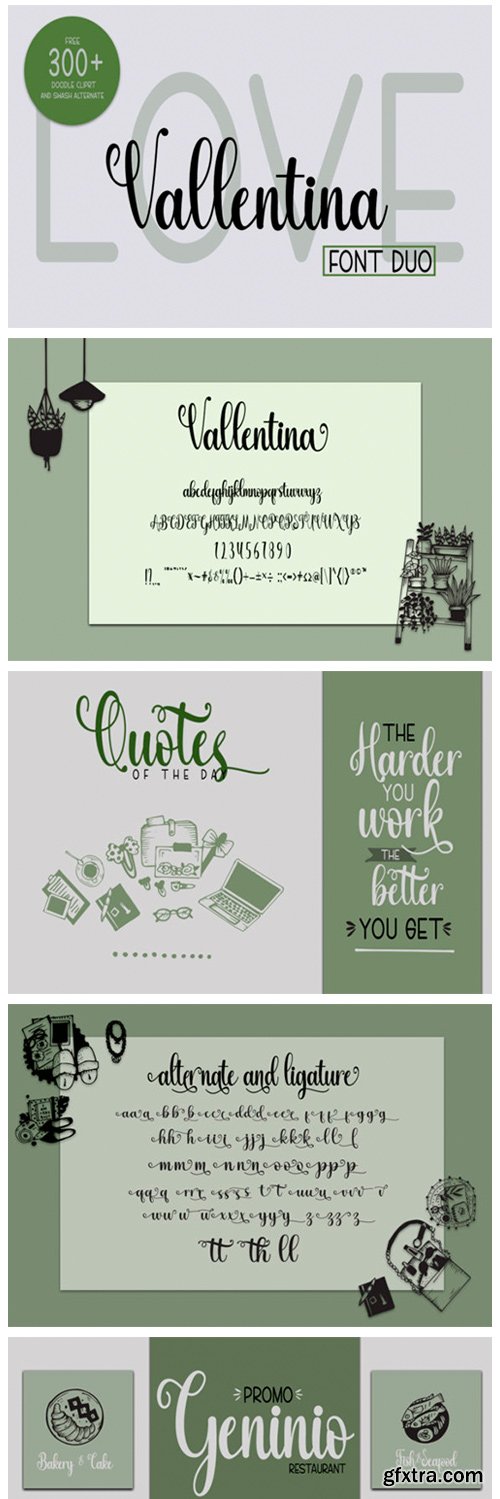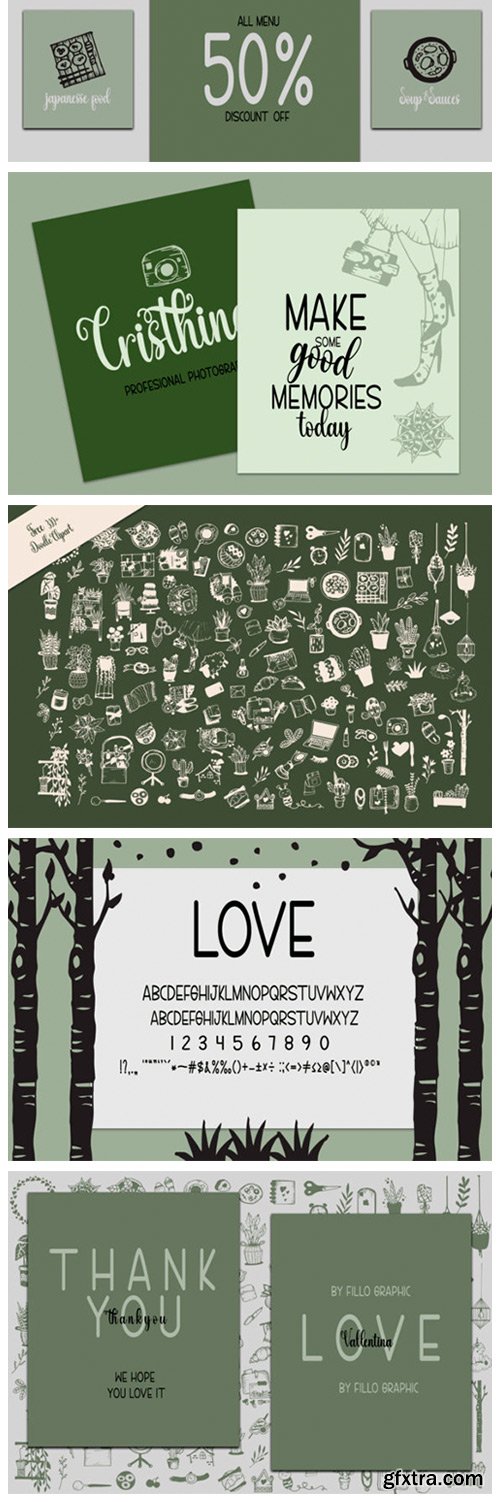
Love Vallentina Duo Font
Love Vallentina is a spectacular duo font with a beautiful combination of both script and handwritten fonts. Defined by characters that dance along the baseline. Incredibly versatile, these fonts fit a wide range of designs, elevating them to the highest levels. Add this font to your favorite creative ideas and notice how it makes them come alive!